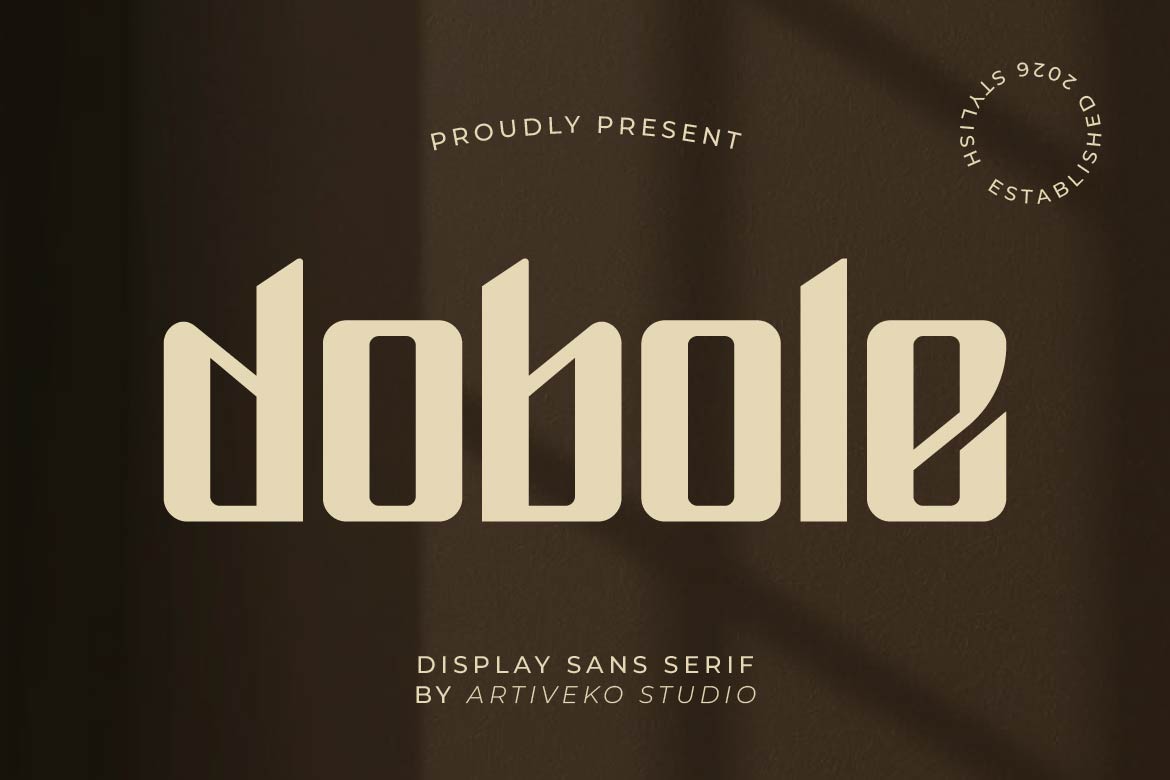
- Dobole – Art Deco Geometric Display Font
Dobole is an Art Deco geometric display font inspired by the bold architecture, elegant symmetry, and distinctive lettering of the Art Deco era. Its tall proportions, geometric construction, sharp diagonal cuts, and rounded inner forms create a striking visual rhythm that feels both nostalgic and contemporary.
Designed for designers who want something more distinctive than a conventional geometric sans serif, Dobole brings a sophisticated architectural character to modern typography. Its unusual letterforms make it especially effective when the type itself needs to become a major part of the visual composition.
Perfect for luxury logos, fashion branding, hotel identities, posters, editorial headlines, packaging, restaurant branding, architectural projects, invitations, signage, album artwork, and premium product design, Dobole works particularly well in large display sizes where its unique construction can be fully appreciated.
The combination of Art Deco influence and contemporary geometric structure allows Dobole to move effortlessly between vintage-inspired concepts and modern luxury aesthetics. Use it for a heritage-inspired identity, an elegant fashion campaign, a sophisticated hospitality brand, or a bold editorial headline.
Dobole is where Art Deco geometry meets contemporary display typography—crafted for designs that deserve to be remembered.